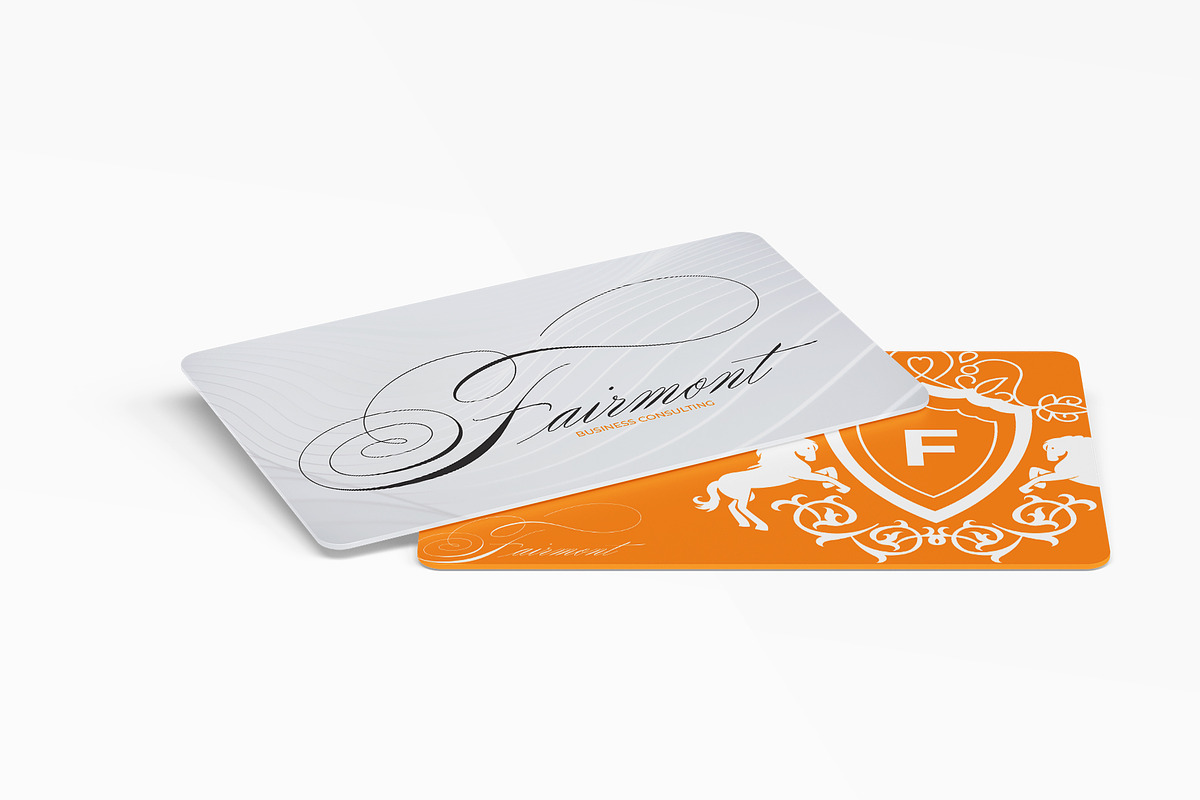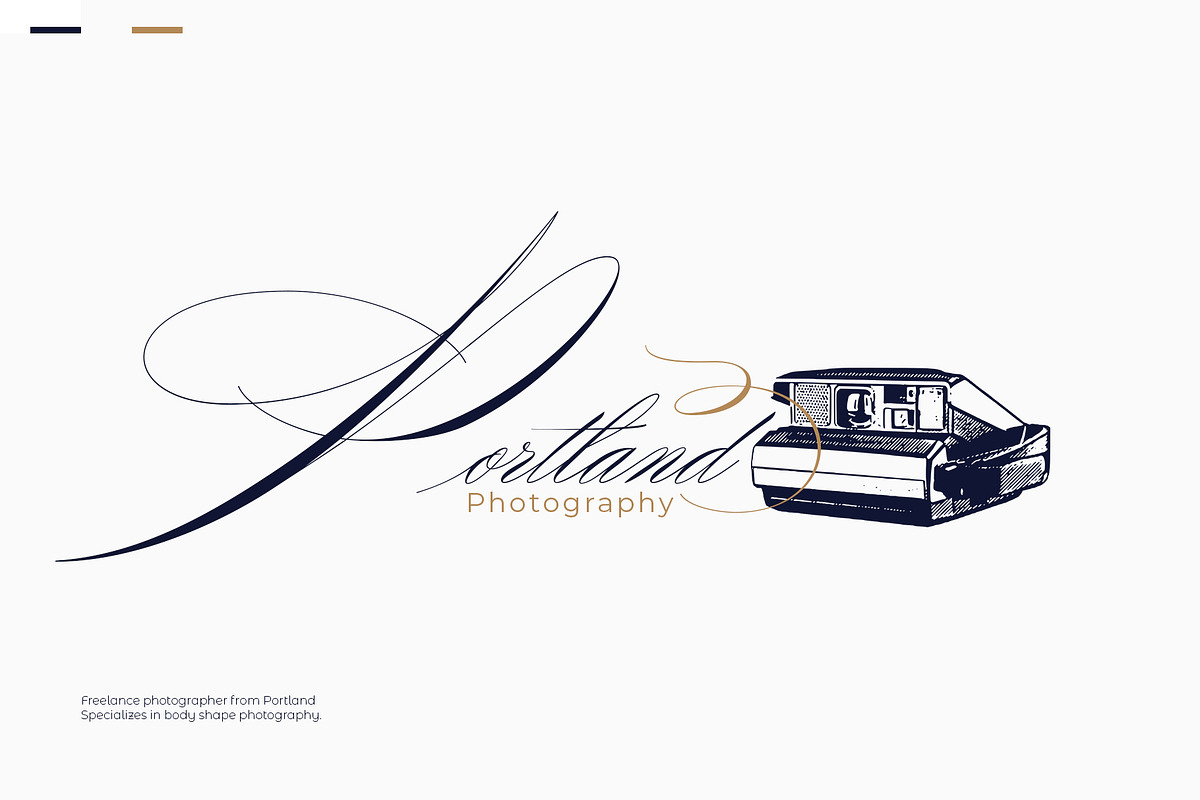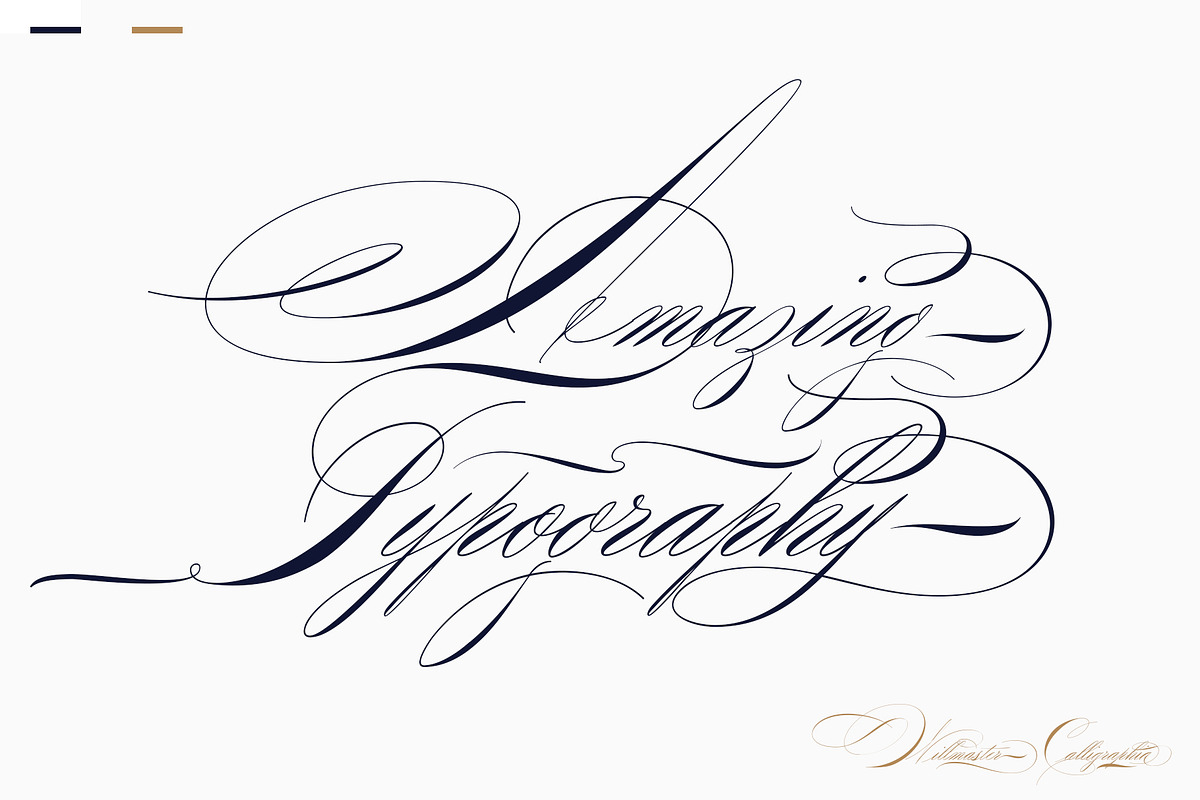
Willmaster Calligraphia
Willmaster Calligraphia is a classic font, I built it with my relaxed hands. designing a classic font but having a modern element in it, which makes it particularly suitable for wedding media, book covers, greeting cards, logos, branding, business cards and certificates, in fact for any design work that requires a clasik, formal or luxurious.
Try Willmaster Calligraphia, enjoy the richness of OpenType features and let her fun and elegant excitement make you happy and enhance your creativity! You can use this font very easily.
Includes multilingual support and ornamental penmanship